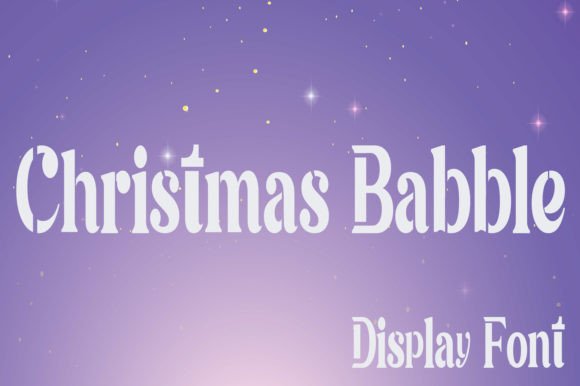
Introducing Christmas Babble Font: Add a Festive Touch to Your Designs
Are you looking for a font that can add a dash of festive fun to your designs? Look no further than the Christmas Babble Font! This fun and bold serif font is perfect for designers and crafters who want to create eye-catching projects that scream holiday cheer. In this article, we’ll take a closer look at the Christmas Babble Font, its features, and how you can use it to take your designs to the next level.
What is Christmas Babble Font?
Christmas Babble Font is a serif font designed to bring a touch of festive fun to your designs. Its bold and playful style makes it perfect for creating eye-catching headlines, titles, and graphics for the holiday season. The font is carefully crafted to resemble the joyful and lively spirit of Christmas, making it an excellent addition to any design project.
Key Features of Christmas Babble Font
So, what makes Christmas Babble Font so special? Here are some of its key features:
- Fun and Bold Design: The Christmas Babble Font boasts a fun and bold design that’s sure to grab attention. Its serif style adds a touch of sophistication, making it perfect for a wide range of design projects.
- Easy to Read: Despite its bold style, the Christmas Babble Font is easy to read, making it perfect for use in headlines, titles, and body text.
- Versatile: The Christmas Babble Font is incredibly versatile, making it suitable for a wide range of design projects, from holiday cards and invitations to website headers and social media graphics.
- High-Quality: The font is carefully crafted to ensure high-quality output, making it perfect for both digital and print designs.
How to Use Christmas Babble Font in Your Designs
Using the Christmas Babble Font in your designs is easy! Here are some ideas to get you started:
- Holiday Cards and Invitations: Add a festive touch to your holiday cards and invitations with the Christmas Babble Font. Use it to create eye-catching headlines and titles that set the tone for the holiday season.
- Website Headers and Graphics: Add some holiday cheer to your website with the Christmas Babble Font. Use it to create festive headers, graphics, and social media posts that engage your audience.
- Social Media Graphics: Create eye-catching social media graphics with the Christmas Babble Font. Use it to create festive posts, ads, and promotions that drive engagement and sales.
- Crafting and DIY Projects: The Christmas Babble Font is also perfect for crafters and DIY enthusiasts. Use it to create festive signs, banners, and decorations for your holiday projects.
Why Choose Christmas Babble Font?
So, why choose the Christmas Babble Font for your designs? Here are just a few reasons:
- Unique and Festive: The Christmas Babble Font is a unique and festive font that’s sure to add a touch of holiday cheer to your designs.
- High-Quality: The font is carefully crafted to ensure high-quality output, making it perfect for both digital and print designs.
In conclusion, the Christmas Babble Font is a fun and bold serif font that’s perfect for designers and crafters who want to add a touch of festive fun to their designs. With its unique and festive style, high-quality output, and ease of use, it’s an excellent addition to any design project. So why wait? Download the Christmas Babble Font today and add some holiday cheer to your designs!
Christmas Babble is a fun and bold serif font. Add it confidently to your projects and enjoy the results!